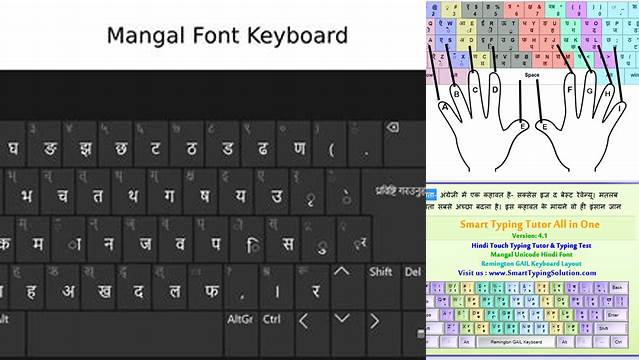
Hey guys! Are you on the hunt for a Mangal font English typing software and hoping to snag a free download? You've landed in the right spot. Typing in Mangal font can sometimes feel like navigating a maze, especially if you're accustomed to the standard English keyboard layout. Fear not! This guide is crafted to help you understand the ins and outs of Mangal font typing, explore the best free software options available, and get you up and running in no time. We'll cover everything from the basics of what Mangal font is to how to download and install the software. Also, we'll troubleshoot common issues you might face along the way. Let's dive in and make Mangal typing a breeze for you!
What is Mangal Font?
Firstly, what exactly is Mangal font? Mangal is a Devanagari script font, primarily used for typing in Hindi, Marathi, and Nepali languages. It's designed to be visually appealing and easy to read, making it a popular choice for both official documents and creative writing. The challenge arises when you try to type using the standard QWERTY keyboard, which isn't inherently configured for the Devanagari script. That's where Mangal font typing software comes into play. This software essentially acts as a translator, converting your English keyboard inputs into the corresponding Devanagari characters. This allows you to type in Hindi or Marathi with relative ease, even if you're not familiar with the language’s typing layout. Imagine typing English and seeing Hindi characters magically appear – that's the magic of the software. The software typically comes with phonetic keyboard layouts, which means you can type the words phonetically in English, and the software will convert it into the appropriate Hindi or Marathi characters. This approach significantly reduces the learning curve, especially for those new to these languages' typing layouts. Mangal font is also used extensively in government and educational sectors, making the knowledge of typing in this font a valuable skill. There are several variations of the Mangal font available, and choosing the right one can depend on your specific needs. Some variations include stylistic differences, while others are designed to improve readability on various screens. Before selecting your software, it's a good idea to explore different Mangal font styles to decide which best suits your needs. The flexibility offered by the software means you can easily switch between typing in English and the Mangal font, catering to the need for bilingual documents and communication. The setup can initially seem daunting, but the benefits, such as the ability to communicate effectively in multiple languages, are well worth the effort. The free download options we will explore in the following sections are designed to make your journey into Mangal font typing as smooth as possible. Whether you're a student, a professional, or just someone with a curiosity for languages, learning to use the Mangal font can open up a whole new world of communication and creativity.